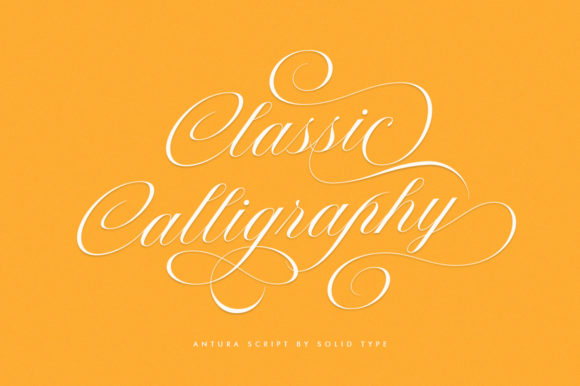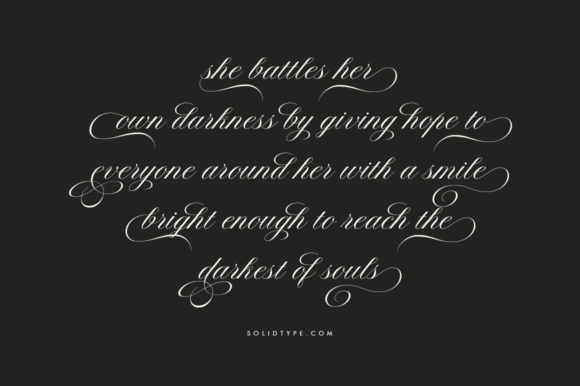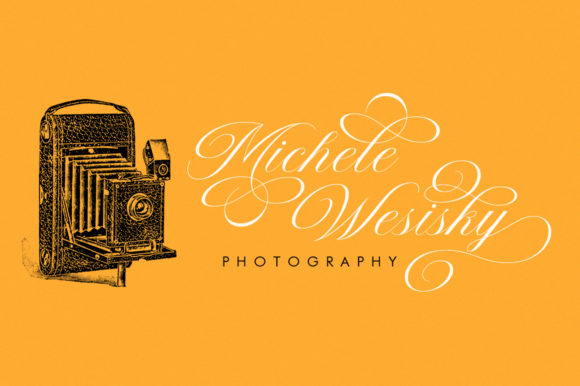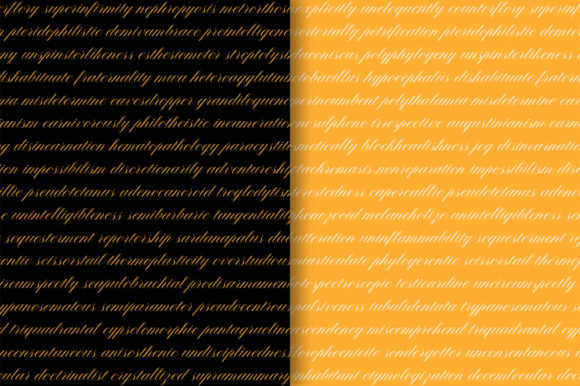
Introducing Antura Font: A Stunning Calligraphy Script for Elegant Designs
In the world of typography, a good font can make all the difference in creating a visually appealing design. For designers and crafters looking for a classic yet modern calligraphy script, Antura Font is an excellent choice. This beautiful font is designed to bring stylish elegance to various design projects, from formal invitations to fashion branding.
What is Antura Script?
Antura Script is a calligraphy script font that boasts stunning changing characters, reminiscent of classic decorative copper script with a modern twist. The font is crafted with high detail to exude a sense of sophistication and glamour. Its smooth, clean, and feminine lines make it an attractive typeface for designers seeking to add a touch of elegance to their work.
Key Features of Antura Script
- Smooth and Clean Lines: Antura Script features smooth, clean lines that give it a luxurious feel, perfect for high-end designs.
- Feminine and Sensual: The font’s curves and swashes evoke a sense of femininity and sensuality, making it ideal for fashion, beauty, and lifestyle brands.
- Glamorous and Elegant: Antura Script’s classic style, combined with its modern touch, makes it a glamorous and elegant choice for formal designs.
- Easy to Read: Despite its ornate nature, Antura Script is surprisingly easy to read, thanks to its well-designed letter connections.
- Variety of Alternates: The font offers a range of viable style alternatives for many letters, allowing designers to experiment with different looks and styles.
Use Cases for Antura Script
Antura Script’s versatility makes it suitable for a wide range of design applications, including:
- Invitations: Weddings, formal events, and parties can benefit from Antura Script’s elegant and sophisticated feel.
- Labels and Packaging: The font’s glamorous style makes it perfect for product labels, packaging, and branding.
- Restaurant Menus: Antura Script can add a touch of luxury to restaurant menus, making it ideal for fine dining establishments.
- Logos and Branding: Fashion, beauty, and lifestyle brands can benefit from Antura Script’s feminine and sensual style.
- Stationery and Novels: The font’s classic style makes it suitable for novels, magazines, books, and stationery.
Antura Script is a stunning calligraphy script font that offers a unique blend of classic elegance and modern sophistication. Its smooth lines, feminine curves, and glamorous style make it an excellent choice for designers and crafters seeking to create visually appealing designs. With its versatility, technical compatibility, and range of alternates, Antura Script is an excellent addition to any designer’s font library.